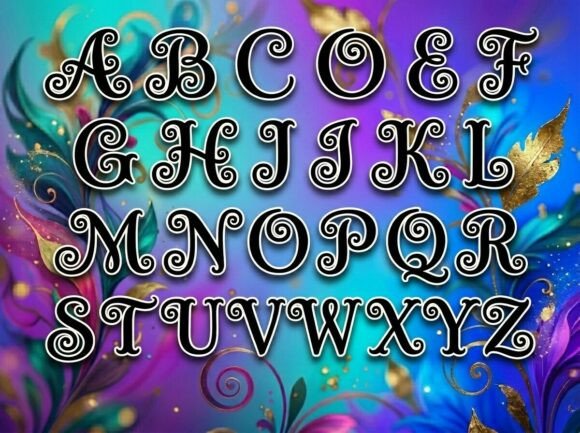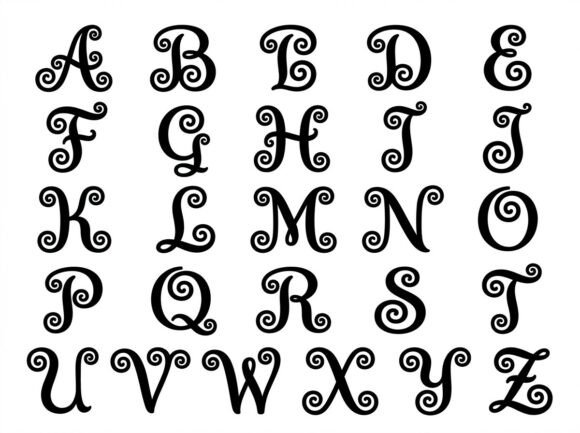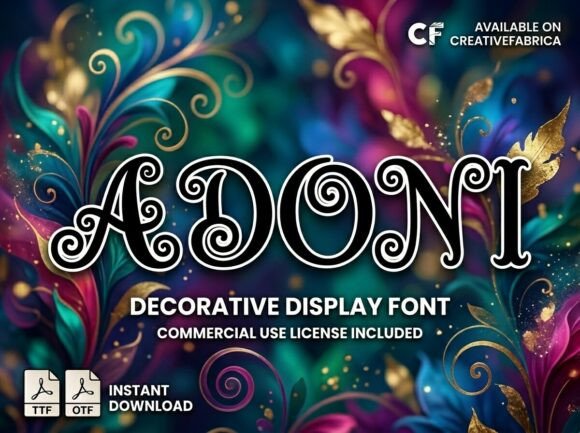
Introduction to Adoni Font
Experience the pinnacle of whimsical elegance with Adoni, a decorative swirl display font designed for enchanting visual storytelling.
This typeface features bold letterforms adorned with intricate, curling flourishes and rhythmic “swirl” motifs that capture the authentic essence of artisanal craftsmanship Its playful yet sophisticated silhouette and airy loops provide a magical aesthetic, making it an extraordinary choice for fantasy book titles, boutique apothecary branding, celestial-themed stationery, and ethereal social media headers.
Key Features of Adoni Font
Why Choose Adoni Font?
Adoni Font offers exceptional quality and versatility, making it a valuable addition to your design toolkit. Whether you’re creating for personal projects or commercial use, Adoni Font delivers professional results.